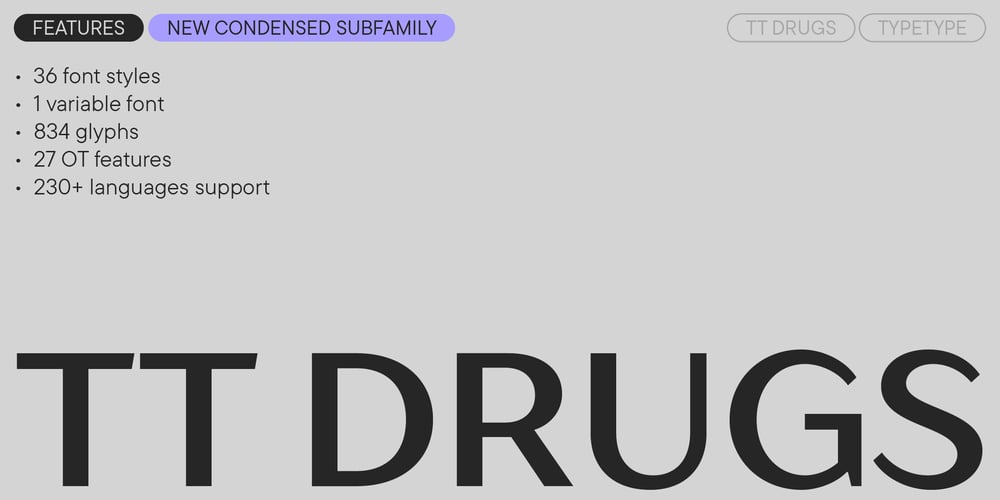
TT Drugs Font Family was designed by Antonina Zhulkova, Marina Khodak, TypeType Team, Assylbek Umurzak and published by TypeType. TT Drugs contains 37 styles and family package options. Introducing the legendary TT Drugs version 2.100! We’ve given the font a beauty injection: added a new subfamily, enhanced the variable font, and refined its technical aspects.TT Drugs is a typeface that doesn’t feature serifs but stands out for its high contrast. Its narrow terminals lend an elegant and sophisticated appearance. Interestingly, the upper parts of stems in letters like ‘n’, ‘m’, ‘p’, ‘q’, ‘r’ and the lower elements of strokes in ‘a’ and ‘u’ are slightly curved. These details make the font unique and add refinement while maintaining its serious character.The typeface’s name reflects the story of its creation: the font family was initially intended to be used for the pharmaceutical industry. However, in practical use, the font revealed its multiple dimensions and seamlessly blended with differently themed projects. After the update, the typeface has become even more versatile, so now only its provocative title reminds us of the pharmaceutical past of TT Drugs.The updated font can easily become part of a skincare brand’s visual identity, adorn a design magazine cover, appear on a healthy food restaurant signage, or feature in a classical concert poster.We completely redesigned TT Drugs: recalculated its weight, made the graphics more resonant, clean, and modern. We critically reimagined Cyrillic forms and eliminated ambiguous solutions. Version 2.100 introduces a Condensed subfamily with 18 font styles—9 upright and 9 italic. We’ve also added a Width axis to the variable font, enabling changes across three axes. Additionally, we’ve updated kerning and hinting.The updated TT Drugs includes: 37 styles: 18 upright, 18 italic, and 1 variable font 834 characters per style 27 OpenType features Support for over 230 languagesTT Drugs: a magic pill for your projects (caution: font may cause addiction!)